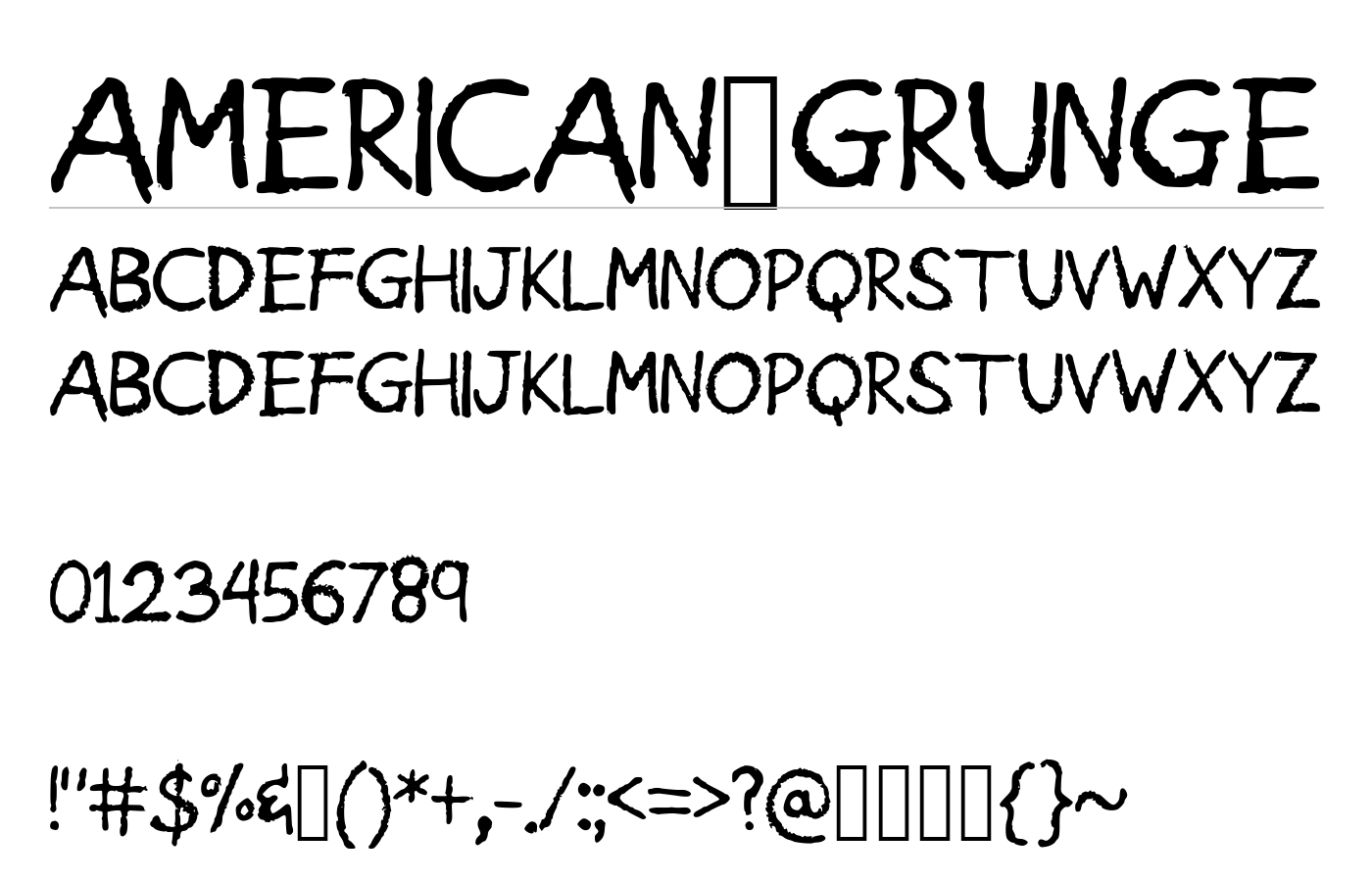
American Grunge is a bold, hand-drawn sans serif font with a rough and textured appearance that conveys an edgy, informal vibe. Its uneven strokes and irregular edges create a raw, distressed look, making it ideal for designs that want to evoke a rebellious, urban, or vintage grunge style. This font works best in headlines, posters, and branding that aims to stand out with a bold, creative, and unconventional personality.
American_Grunge Font
About American_Grunge Font